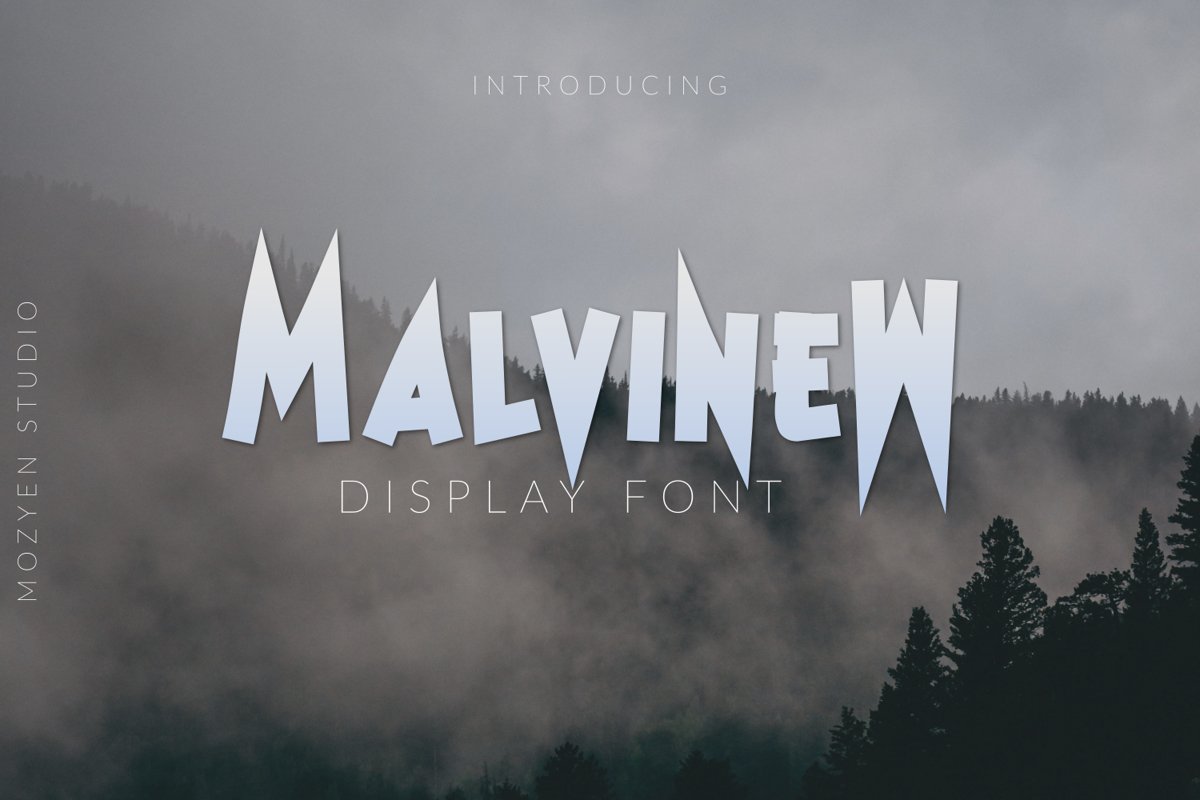
MalvineW
Happily born son of the family Mozyen studio. He is the “MalvineW” Display Font. Malvinew is very suitable for the design of book titles, movie titles, all kinds of related title designs. Included TTF, OTF and WOFF Files. Thank You For Your Purchased.